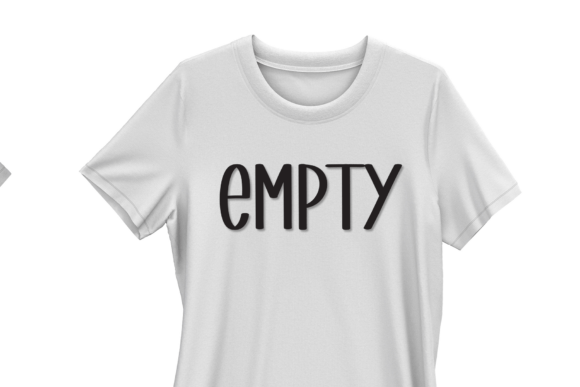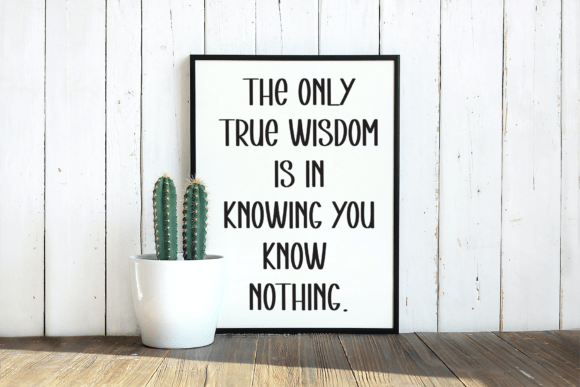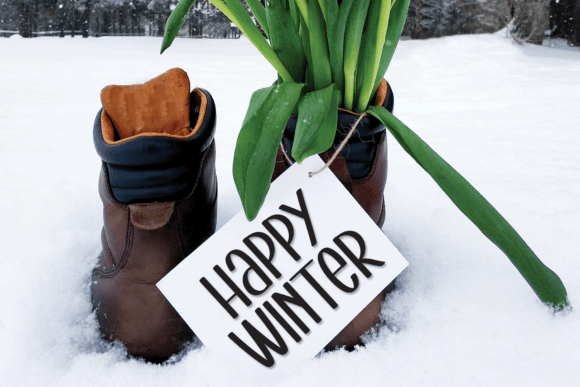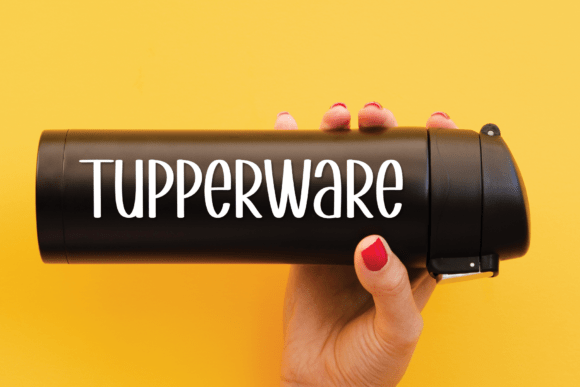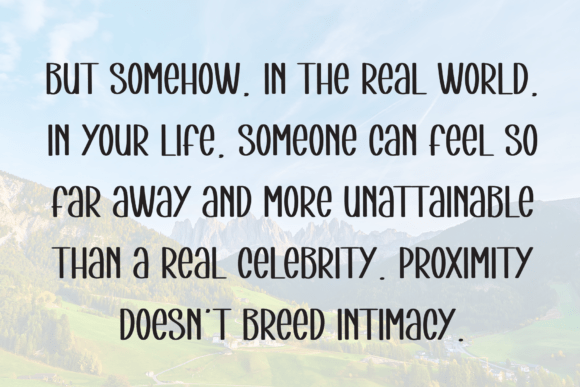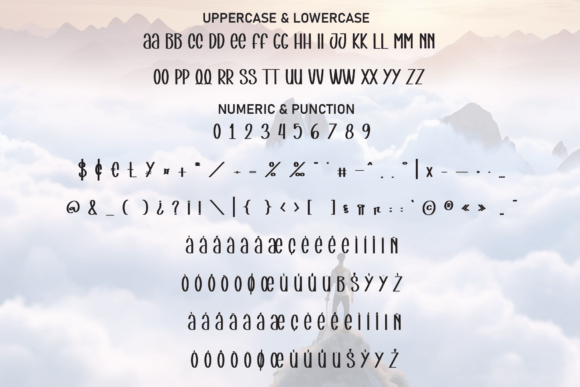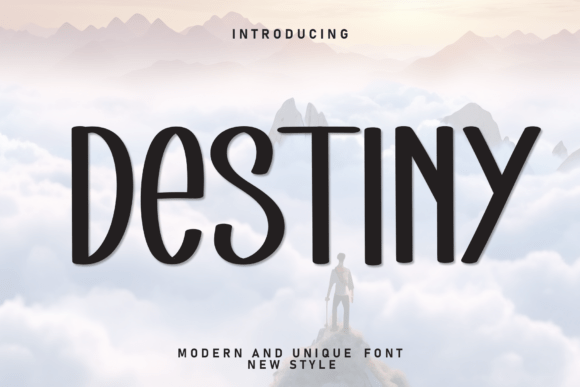
Introducing Destiny Font: The Ultimate Handwritten Display Font for Creative Designs
Are you a designer or crafter looking for a font that can add a touch of whimsy and charm to your creative projects? Look no further than Destiny Font, an enchanting yet personable handwritten display font that’s perfect for crafting wedding invitations, delightful cards, and more. With its endearing and jovial quality, this font effortlessly brings an element of joy to your creations, making it a darling addition to your toolkit.
The Perfect Blend of Whimsy and Elegance
Destiny Font is designed to bring a sense of playfulness and elegance to your designs. Its unique blend of whimsical and refined elements makes it perfect for a wide range of creative projects, from wedding invitations and greeting cards to posters and social media graphics. Whether you’re looking to add a touch of sophistication or a dash of fun to your designs, Destiny Font is the perfect choice.
Key Features of Destiny Font
- Handwritten display font: Destiny Font is a carefully crafted handwritten display font that’s designed to bring a personal touch to your designs.
- Whimsical and charming: With its unique blend of whimsy and charm, this font is perfect for adding a touch of personality to your creations.
- Perfect for wedding invitations and cards: Destiny Font is ideal for crafting beautiful wedding invitations, greeting cards, and other celebratory designs.
- Light-hearted and fun: This font is designed to bring a sense of joy and playfulness to your designs, making it perfect for projects that require a touch of whimsy.
How to Use Destiny Font in Your Designs
Destiny Font is incredibly versatile and can be used in a wide range of design projects. Here are a few ideas to get you started:
- Wedding invitations: Use Destiny Font to create beautiful, one-of-a-kind wedding invitations that set the tone for the big day.
- Greeting cards: Add a touch of personality to your greeting cards with Destiny Font, perfect for birthdays, anniversaries, and more.
- Posters and social media graphics: Use Destiny Font to create eye-catching posters and social media graphics that showcase your brand’s personality.
Tips for Getting the Most Out of Destiny Font
To get the most out of Destiny Font, here are a few tips to keep in mind:
- Experiment with different colors: Destiny Font looks great in a variety of colors, so don’t be afraid to experiment and find the perfect hue for your design.
- Pair with other fonts: Try pairing Destiny Font with other fonts to create a unique and visually appealing design.
- Use it sparingly: While Destiny Font is perfect for adding a touch of whimsy to your designs, it’s best to use it sparingly to avoid overwhelming the design.